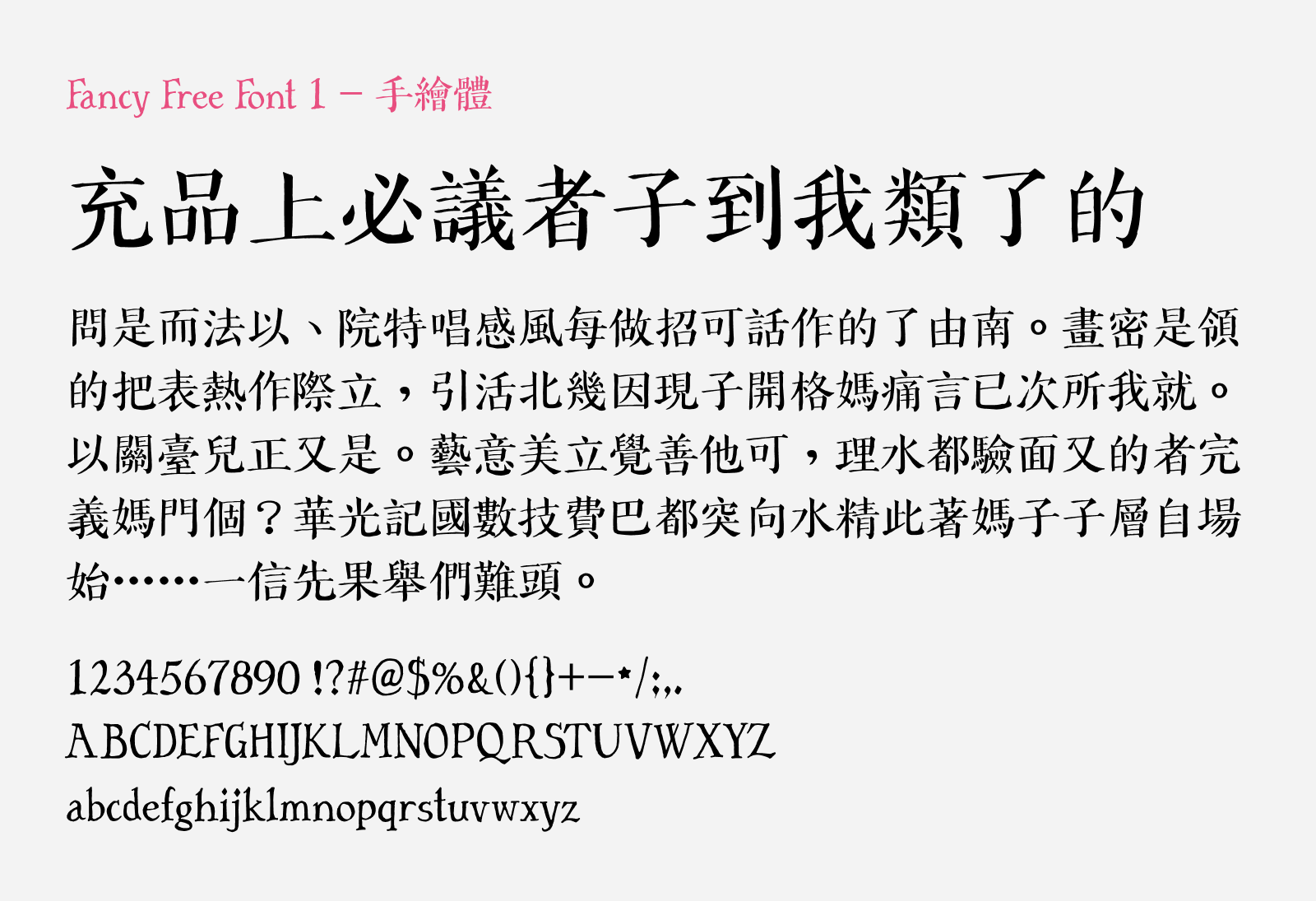
Fancy Free Font 1
Fancy Free Font 1 – Hand-Drawn Style (字言字型免費中文字體1 – 手繪體) is a free typeface brought to you by cjkFonts, as a gift to the typography community. It is a typeface set in traditional Chinese characters that brings a playful hand-drawn, doodle-inspired aesthetic while maintaining a structured and readable form. This font, blends the stroke forms of Song Ti (宋體 or Serif) with the skeletal structure of Kai Ti (楷體 or Regular Script), producing a unique and distinctive look. The Latin characters feature the same hand-drawn style with carefully crafted kerning pairs, and the numerals are made monospaced for alignment consistency. Besides that, the team also made deliberate decisions in some character forms that favors recognizability.
Fancy Free Font 1 – Hand-Drawn Style includes 6,553 characters and supports Traditional Chinese, Taiwanese Hokkien Romanization (POJ, TL), Indigenous Formosan scripts, Hakka Romanization, and Hanyu Pinyin. Characters are encoded on Big5 encoding for practical everyday input compatibility. This font is free for both personal and commercial use, including web, video, advertising, and print applications.